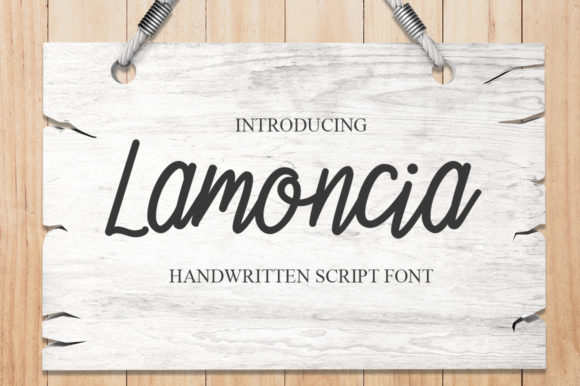
Introducing Lamoncia Font, the Epitome of Elegance in Script Typography
Step into the world of captivating calligraphy with Lamoncia Font, a delicate and graceful handwritten font crafted by Graphix Line Studio. Designed to allure and enchant, Lamoncia is a ravishing script font that effortlessly combines timeless beauty with modern sophistication. Its distinct and meticulously balanced letters dance across the page, creating a masterpiece that will captivate your audience and leave them spellbound.
Awaken Your Creative Spirit with Lamoncia's Unparalleled Versatility
Lamoncia Font's incredibly versatile nature makes it the perfect choice for a diverse range of design projects. Its enchanting charm lends itself beautifully to wedding invitations, heartfelt love letters, and elegant branding materials. Unleash your creativity and let Lamoncia's flowing lines add a touch of magic to your social media posts, website designs, and marketing campaigns. With Lamoncia, your designs will exude an air of sophistication that will leave a lasting impression.
Immerse Yourself in a World of Endless Possibilities with Lamoncia
The possibilities are endless with Lamoncia Font. Its stunning aesthetics and ability to effortlessly blend with other design elements make it a versatile asset for any creative project. Whether you're designing logos, brochures, or eye-catching posters, Lamoncia will elevate your work to new heights. Its intricate details and charming personality will captivate your audience, leaving them mesmerized by your creations.
Indulge in the Beauty of Lamoncia's Exquisite Craftsmanship
Lamoncia Font is a testament to the art of typography. Its meticulously crafted letters showcase the passion and dedication of Graphix Line Studio, resulting in a font that exudes elegance and refinement. Each character is carefully designed to ensure perfect balance and harmony, creating a cohesive and visually stunning font that will enhance any project you undertake.
Unlock the Enchanting World of Lamoncia Font Today